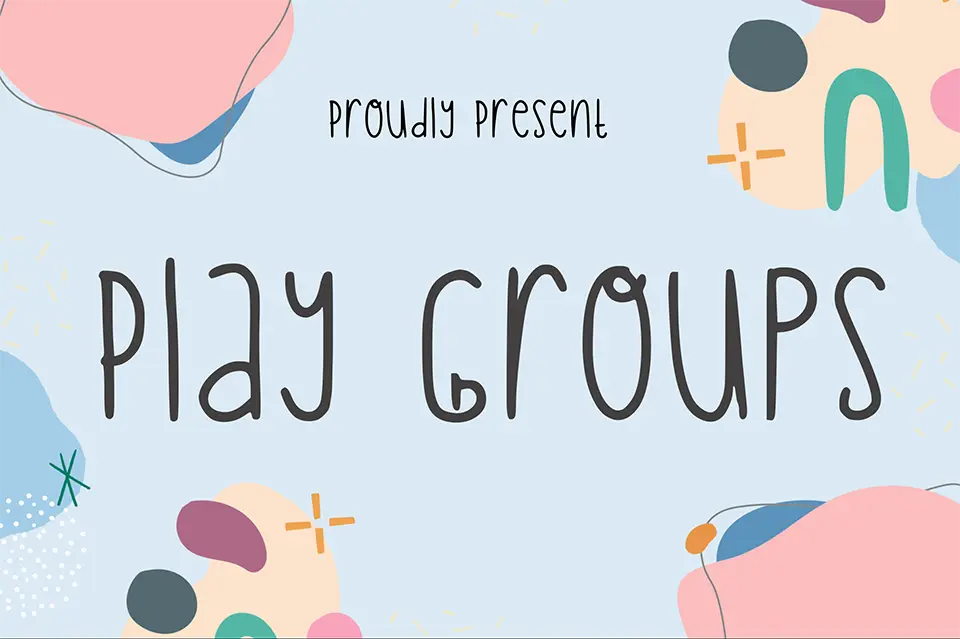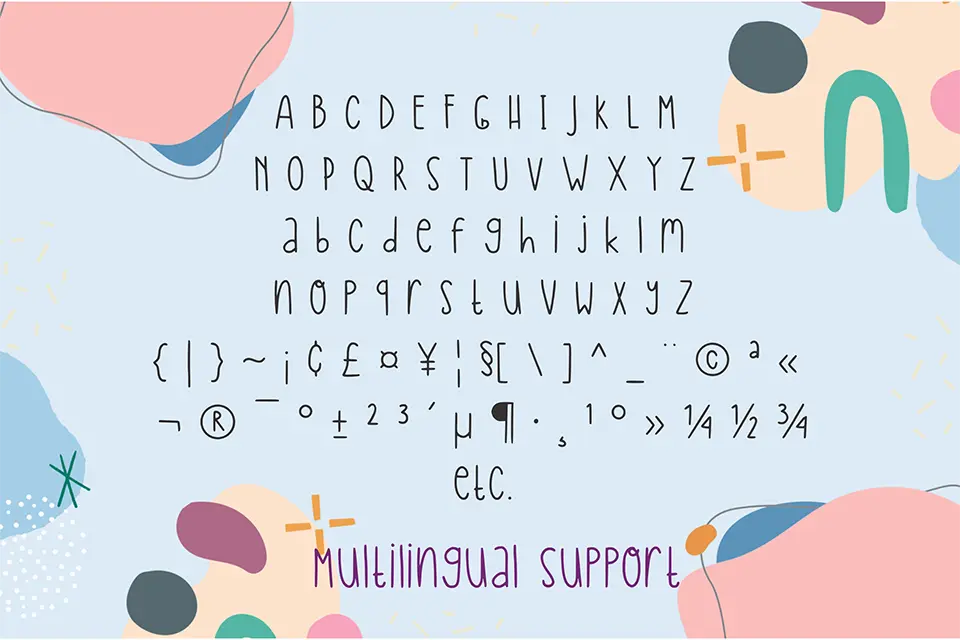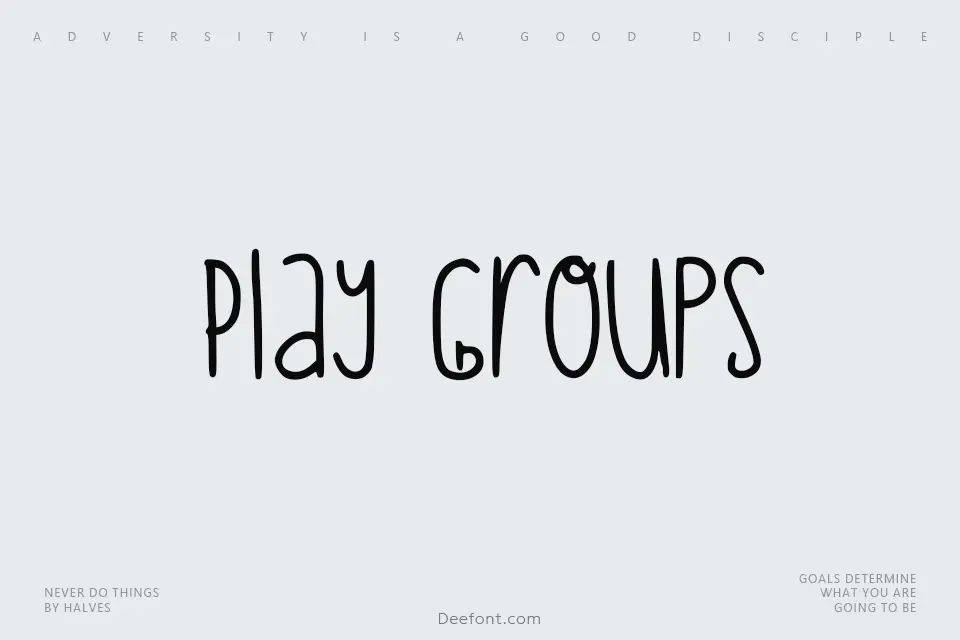
Play Groups Font
Play Groups is a simple and dainty handwritten font. Its natural and unique style makes it incredibly fitting to a large pool of designs. Use this font for your designs and explore its endless possibilities.